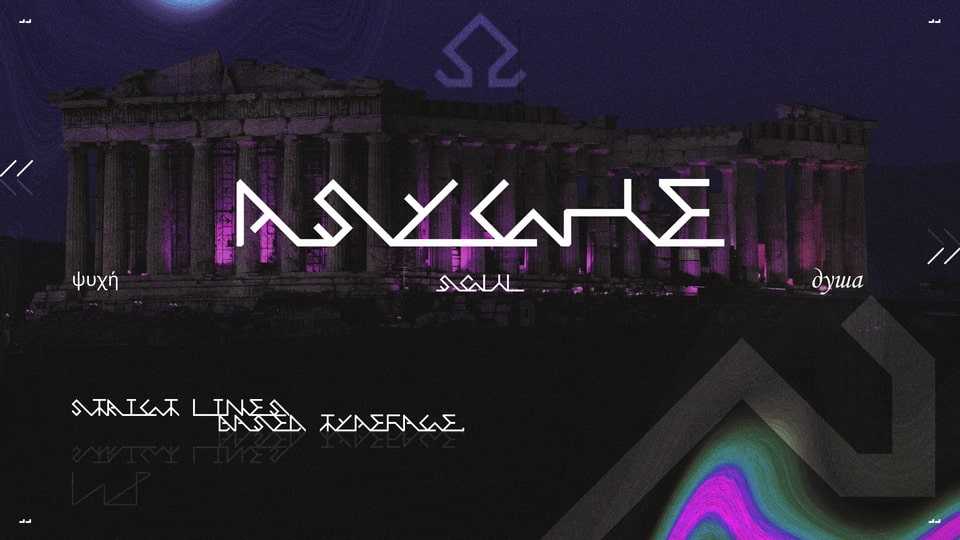
Download Psyche font, a display typeface that excels in music covers, posters, impactful headlines, fashion design and more. The name Psyche, as well as the style of the typeface, combines two trends, Greek culture and underground culture, rave music and chaos.